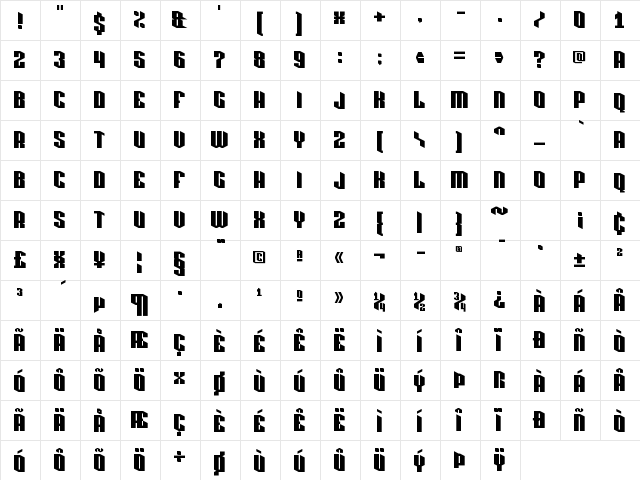
Pixlashed Regular
Design Context for Pixlashed Typeface
Pixlashed is a composed and adaptable typeface that performs quietly and consistently across a wide range of design contexts.